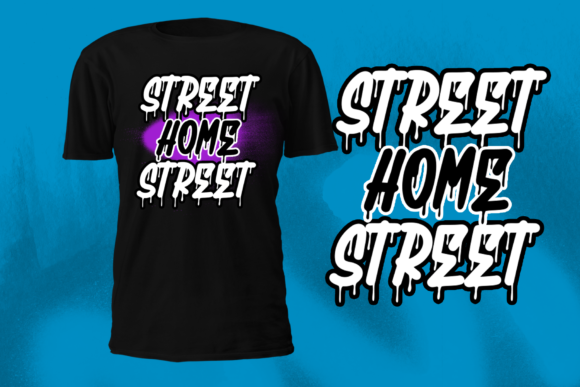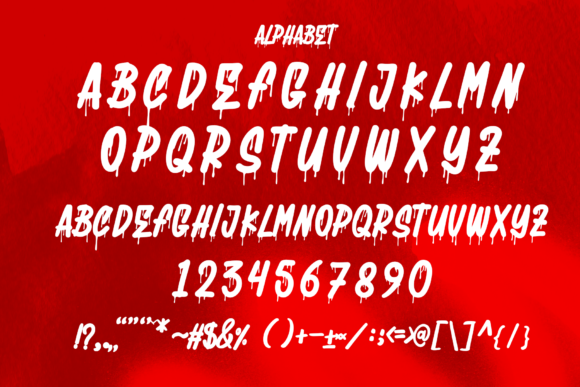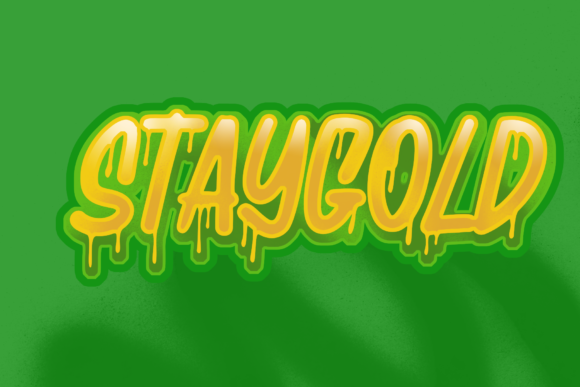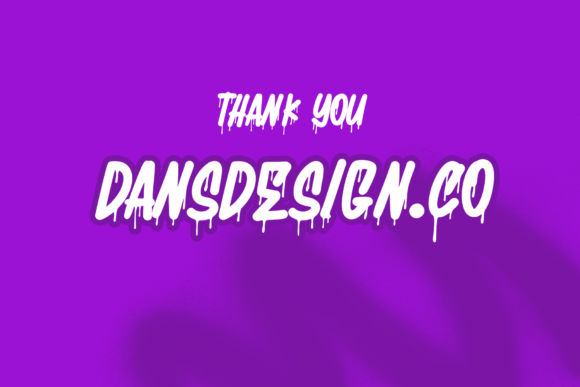
Introduction to Basketor Font
Basketor is a urban and bold looking display font.
It will look stunning on any poster flyer or print Use this font for your designs and explore its endless possibilities.
Key Features of Basketor Font
Why Choose Basketor Font?
Basketor Font offers exceptional quality and versatility, making it a valuable addition to your design toolkit. Whether you’re creating for personal projects or commercial use, Basketor Font delivers professional results.